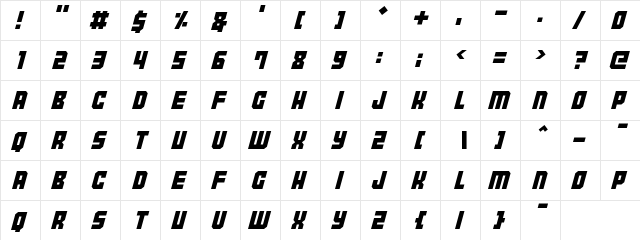
Tokyo 2097 Regular
Design Context for Tokyo 2097 Typeface
Tokyo 2097 is a composed and adaptable typeface that performs quietly and consistently across a wide range of design contexts.
Pro Tip: Use Tokyo 2097 in both headline and body roles to test its range before committing to a single application.